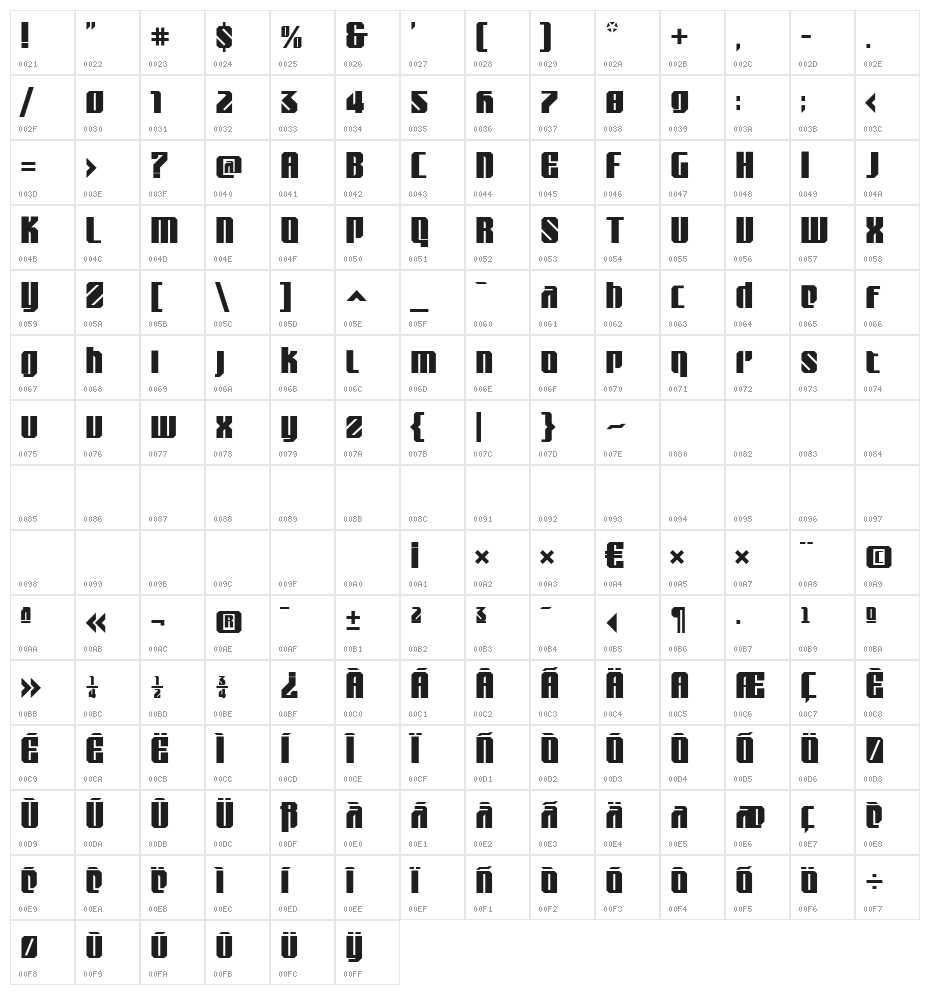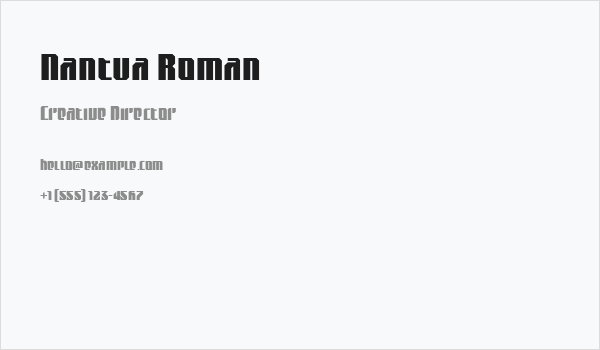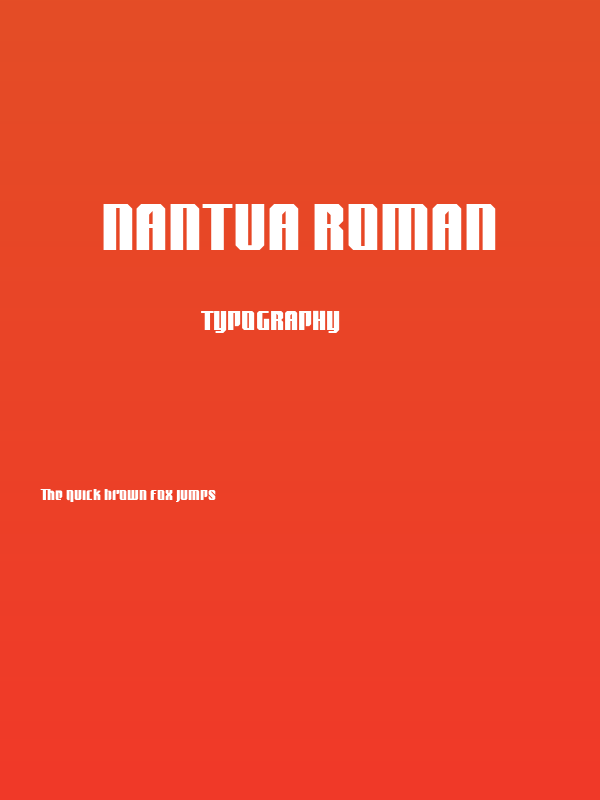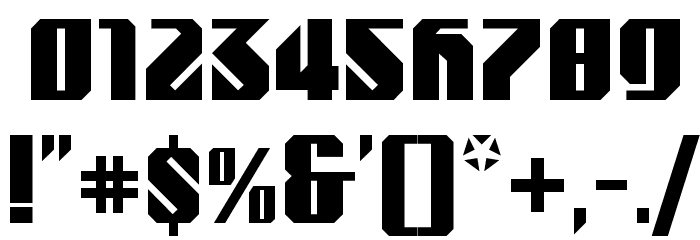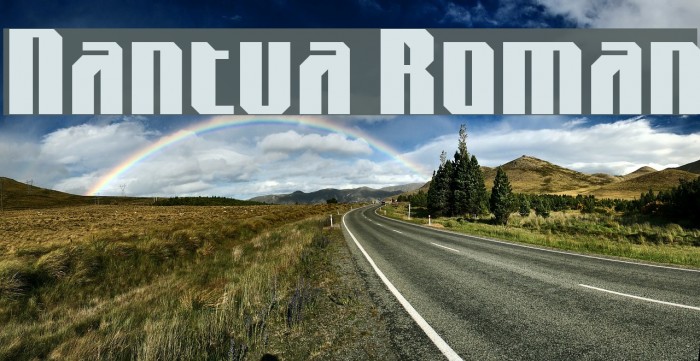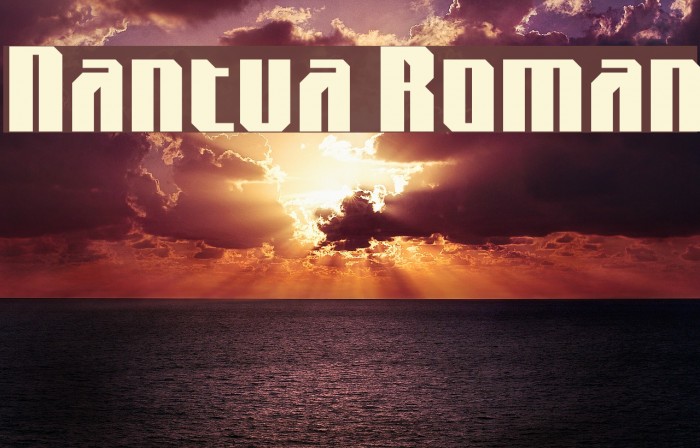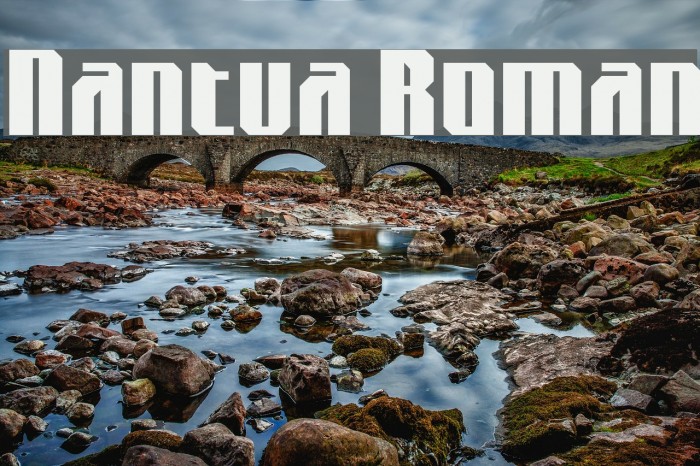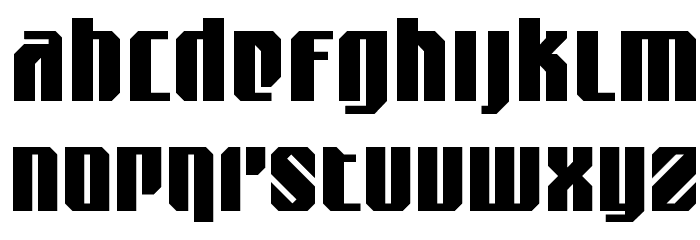
Nantua Roman Font
This font features a bold and geometric design with strong, angular lines and a distinct blocky appearance. The characters are uniformly wide, creating a consistent and impactful look. The uppercase and lowercase letters maintain a similar structure, emphasizing a modern and industrial aesthetic. The numerals and special characters follow the same design principles, ensuring a cohesive visual style across all elements. The font's sharp edges and uniform stroke widths contribute to its striking and assertive presence, making it suitable for attention-grabbing designs.
| Proposed Projects | Ideal for branding, posters, headlines, and any design requiring a strong visual impact. |